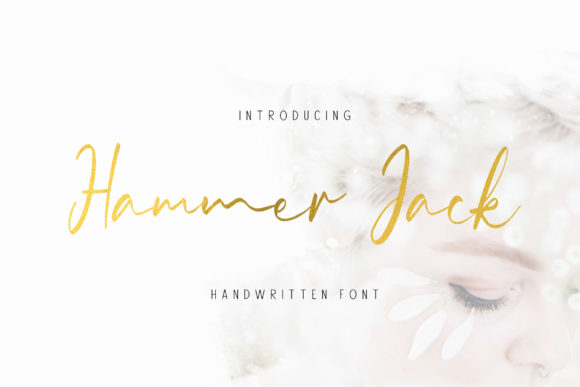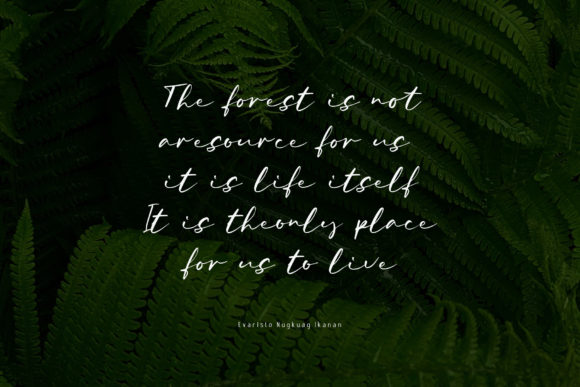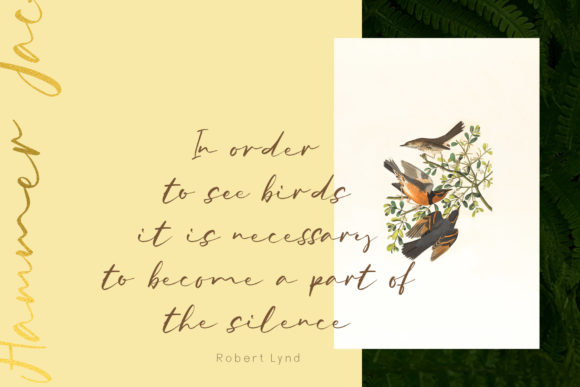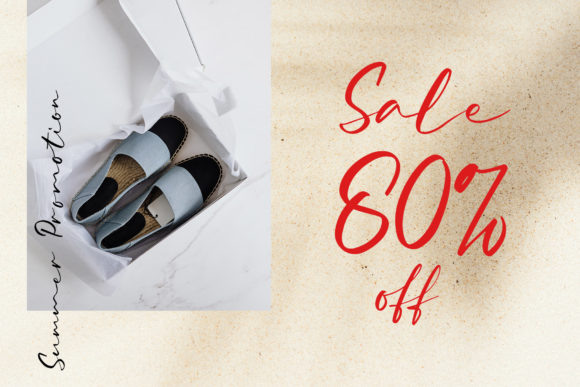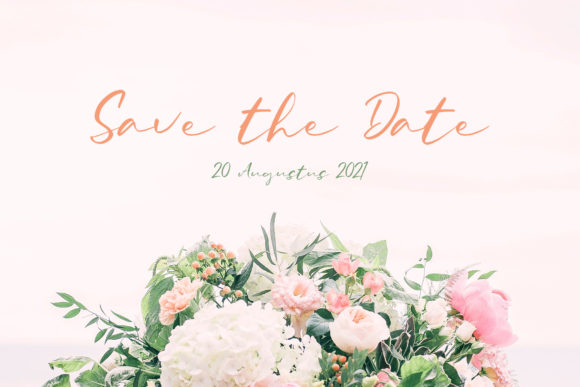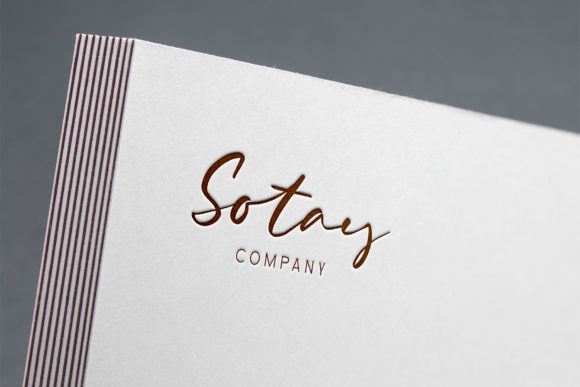
Hammer Jack Font: Elevate Your Designs with Elegance and Timeless Style
Are you on the hunt for a font that exudes elegance, sophistication, and a touch of timeless charm? Look no further than the Hammer Jack Font. This stunning, flowing handwritten font is designed to capture the essence of luxury and refinement, making it the perfect addition to your favorite projects. With its incredibly distinct style, Hammer Jack is sure to leave a lasting impression on your audience.
The Elegance of Hammer Jack
Hammer Jack Font is characterized by its elegant touch, which sets it apart from other fonts in its category. Its flowing lines and curves create a sense of movement and fluidity, giving your designs a dynamic and sophisticated feel. Whether you’re working on a branding project, a wedding invitation, or a packaging design, Hammer Jack is the perfect choice to add a touch of luxury and refinement.
Distinct and Timeless Style
What makes Hammer Jack truly special is its incredibly distinct and timeless style. This font is not just a fleeting trend; it’s a classic design that will stand the test of time. Its unique charm and character will transport your designs to a world of elegance and sophistication, making it perfect for designers and crafters who want to create something truly special.
Hammer Jack Font is versatile and can be used for a wide range of projects, including:
• Branding and Logo Design: Create a lasting impression with your brand’s identity using Hammer Jack’s elegant and sophisticated style.
• Wedding and Event Invitations: Add a touch of luxury and refinement to your wedding or event invitations with Hammer Jack’s flowing handwritten script.
• Packaging Design: Elevate your product packaging with Hammer Jack’s timeless and elegant style, making your product stand out on store shelves.
• Stationery and Greeting Cards: Create beautiful and sophisticated stationery and greeting cards with Hammer Jack’s unique charm and character.
Why Choose Hammer Jack Font?
With so many fonts available, why choose Hammer Jack? Here are just a few reasons:
• Unique and Distinct Style: Hammer Jack’s elegant and timeless style sets it apart from other fonts, making it perfect for designers and crafters who want to create something truly special.
• Versatility: Hammer Jack can be used for a wide range of projects, from branding and logo design to wedding invitations and packaging design.
• Elegance and Sophistication: Hammer Jack exudes luxury and refinement, making it perfect for designers and crafters who want to add a touch of elegance to their designs.
Get Ready to Fall in Love with Hammer Jack
If you’re looking for a font that will elevate your designs and add a touch of elegance and sophistication, look no further than Hammer Jack Font. With its incredibly distinct and timeless style, Hammer Jack is sure to capture your heart and become your go-to font for all your design projects.
In conclusion, Hammer Jack Font is a stunning, flowing handwritten font that exudes elegance, sophistication, and a touch of timeless charm. With its incredibly distinct style and versatility, Hammer Jack is perfect for a wide range of projects, from branding and logo design to wedding invitations and packaging design. So fall in love with Hammer Jack’s unique charm and character, and use it to create spectacular designs that will leave a lasting impression on your audience.